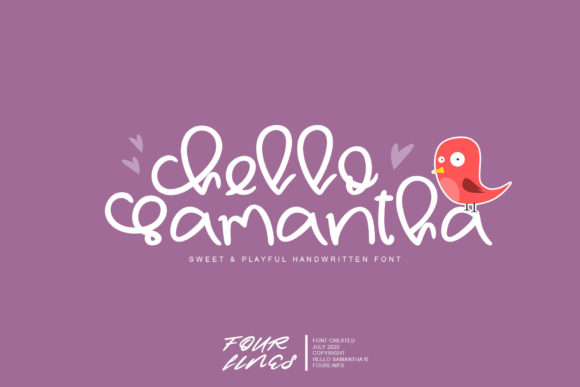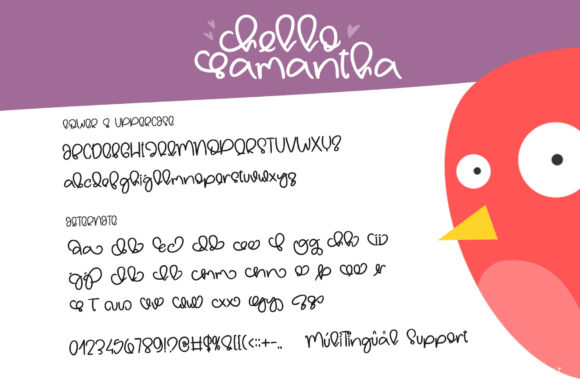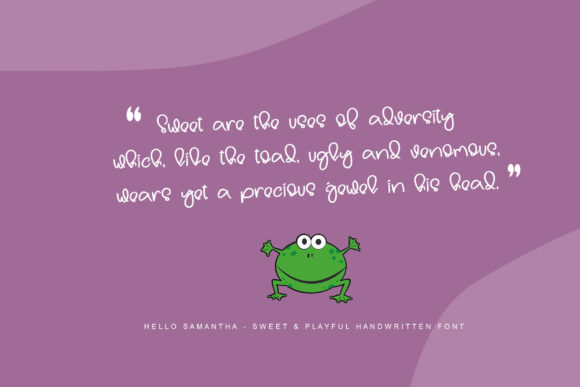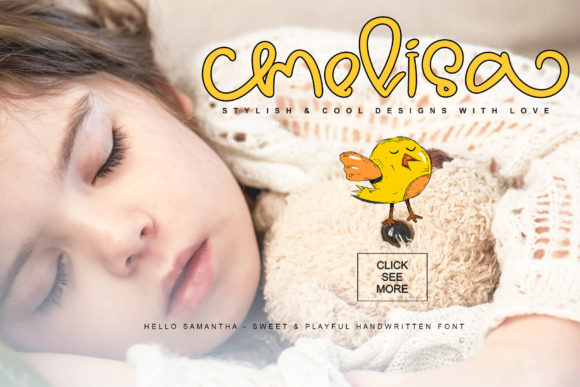
About Hello Samantha Font
Hello Samantha feels equally charming and elegant. It looks stunning on wedding invitations, thank you cards, quotes, greeting cards, logos, business cards and every other design which needs a handwritten touch.